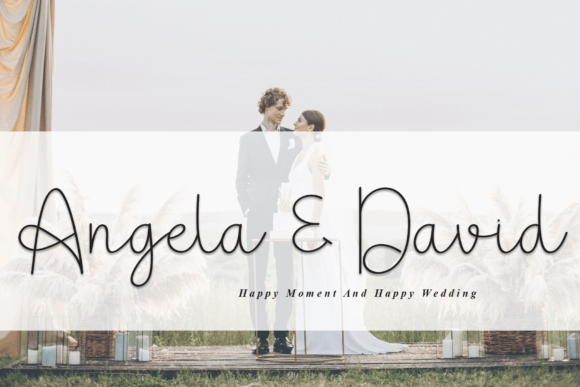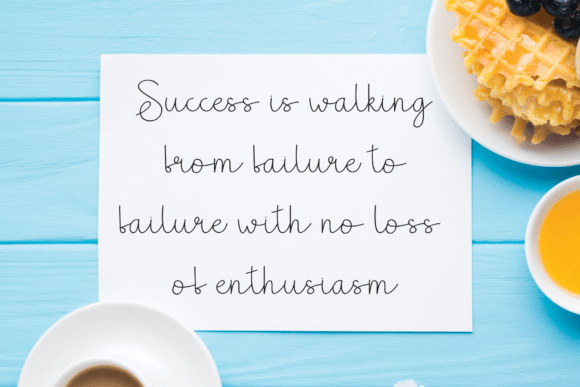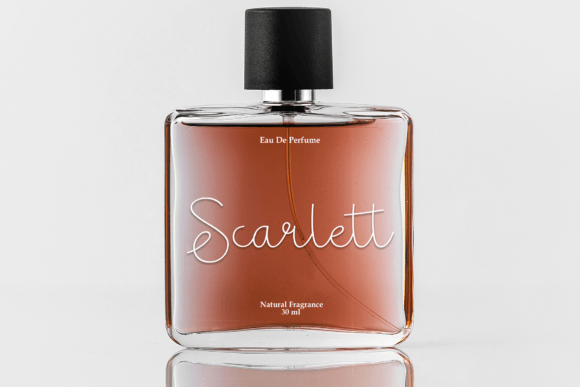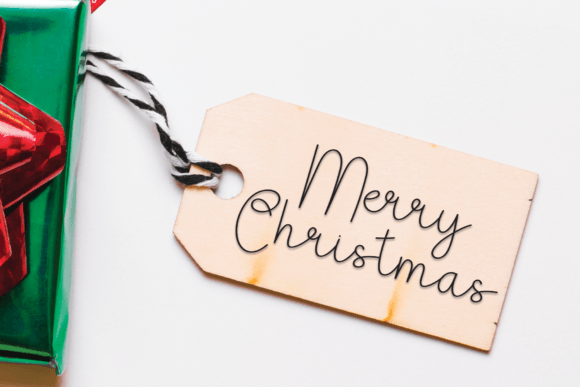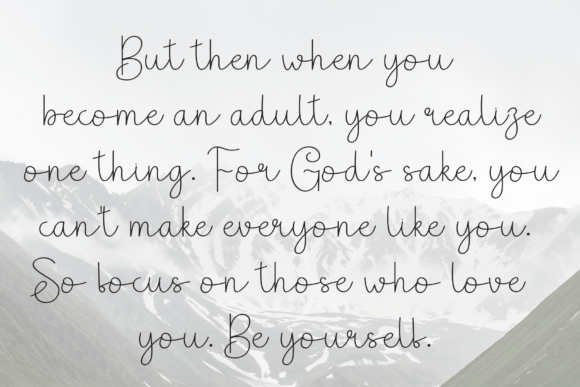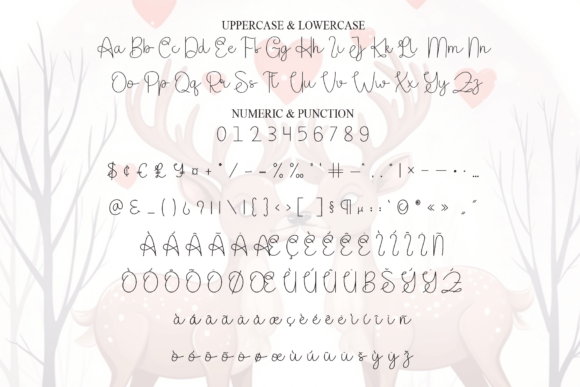
Introduction to Love Reindeer Font
Have you ever been working on a design project, and you just can’t seem to find the right font to bring your vision to life? The cursor blinks on your screen, and you’re stuck in a sea of fonts that just don’t seem to capture the essence of your creative endeavor. That’s where the Love Reindeer Font comes in – a charmingly handmade display font that’s sure to add a touch of magic to your design work.
With its playful personality and swoon-worthy blend of sweet and friendly strokes, this font is an ideal choice for crafting wedding invitations, cards, or any other design project that requires a dash of fun and whimsy. Whether you’re a seasoned designer or a beginner looking for a unique design resource, the Love Reindeer Font is sure to elevate your work and make it stand out from the crowd.
Key Features of Love Reindeer Font
- Unique and playful design, perfect for creative projects and holiday-themed designs
- High-quality font with transparent background, ideal for use on various backgrounds and design elements
- Includes a range of characters and symbols, including uppercase and lowercase letters, numbers, and punctuation
Honest Review: Love Reindeer Font
As a designer, I’m always on the lookout for unique and high-quality design resources to elevate my creative projects. I recently stumbled upon the Love Reindeer Font, and I’m excited to share my honest review.
- ✨ The font has a beautiful, hand-drawn feel that adds a touch of whimsy to any design project.
- ✨ It’s a great option for holiday-themed designs, but the versatility of the font also makes it suitable for other creative projects.
- ⚠️ The font is not as versatile as some other fonts in terms of font sizes and styles.
- ⚠️ Some users may find the font too playful or childish for certain design projects.
Overall, I’m impressed with the Love Reindeer Font’s unique charm and high-quality design. While it may not be the most versatile font, it’s a great option for designers looking for a fun and creative touch. I’d definitely recommend it for holiday-themed projects or designs that require a playful, hand-drawn feel.
Tips for Getting the Most Out of Love Reindeer Font
For high-quality results, use Love Reindeer Font on a transparent background to allow the design to shine. Experiment with different font sizes and colors to create a visually appealing design. You can also use the font in conjunction with other design elements, such as graphics and images, to create a cohesive and creative project.
Common Use Cases for Love Reindeer Font